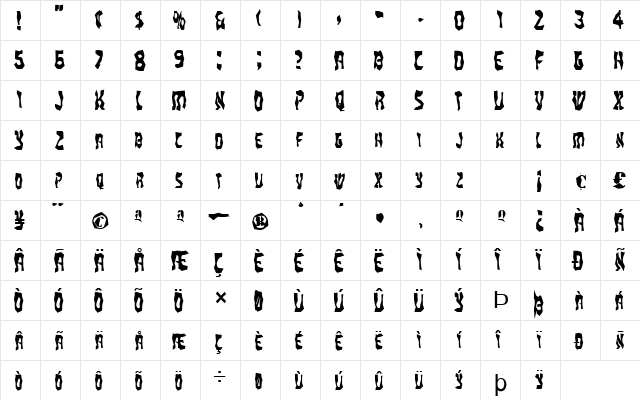
FZ WACKY 20 Normal Font Preview
FZ WACKY 20 Normal
Design Context for FZ WACKY 20 Typeface
FZ WACKY 20 is a composed and adaptable typeface that performs quietly and consistently across a wide range of design contexts.